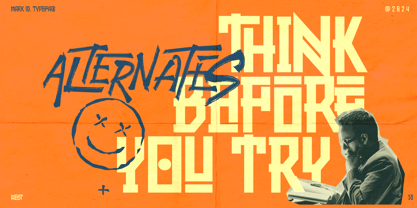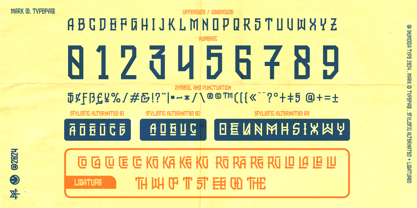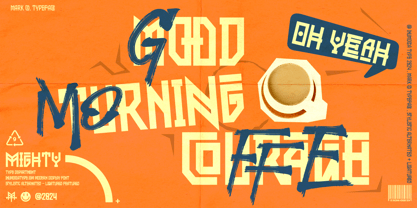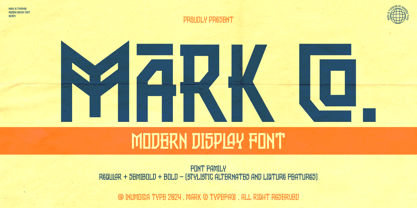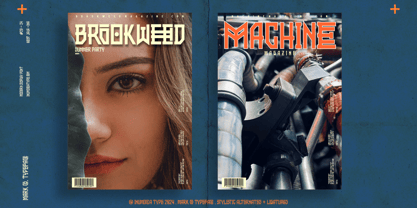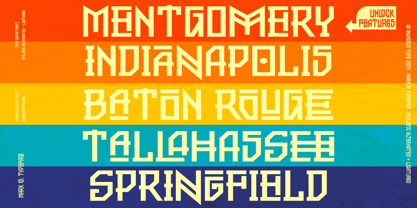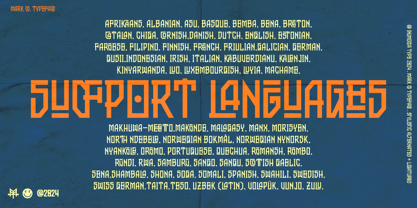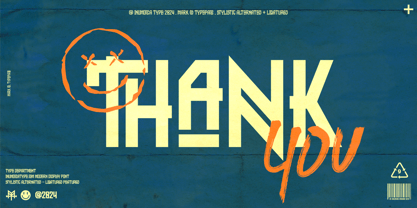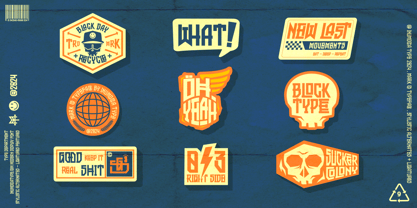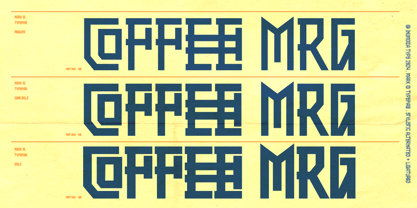
MarkCo
by Inumocca
The MarkCo Font Family was designed by Inu Mocca and published by Inumocca. MarkCo contains 4 styles and family package options.
MarkCo. font is a elegant geometric sans serif front, Modern Display font with 3 Weight variant and playful feel, its perpect for web anf print design project, it was crafted carefully to form a structured and strong letterform that is perpect for covering your Project, You can playing to change ghlyps with Stylistic feature. like Lettering, Website Interface, Magazine, Branding, Poster, Quotes Lettering, Logos, and more your project design. - Unique glyphs - Multilingual Characters - UPPERCASE - Lowercase - Numeric - Symbol - Punctuation Character - Stylistic Alternates - Ligatures inumocca type
About Inumocca
Inumocca type studio is a single work fighter, starting from concept, sketch, exploration of glyphs characters until it becomes a product that is truly worthy of being bought and sold.I started learning to make fonts from 2011 until now. I am still learning continuously, improving what is lacking in my work,I hired several people to work in a team with me several times, the results were always the same, not what I expected, and in the end I became a single worker